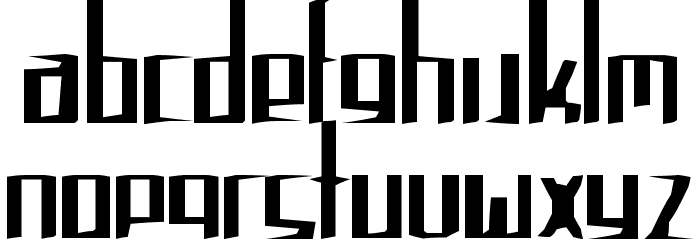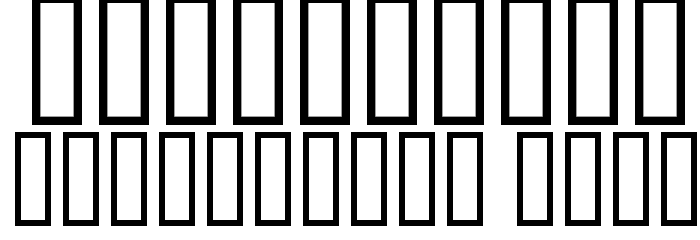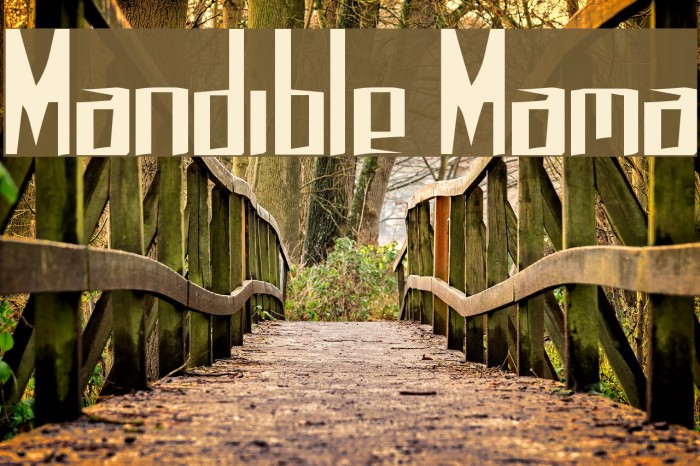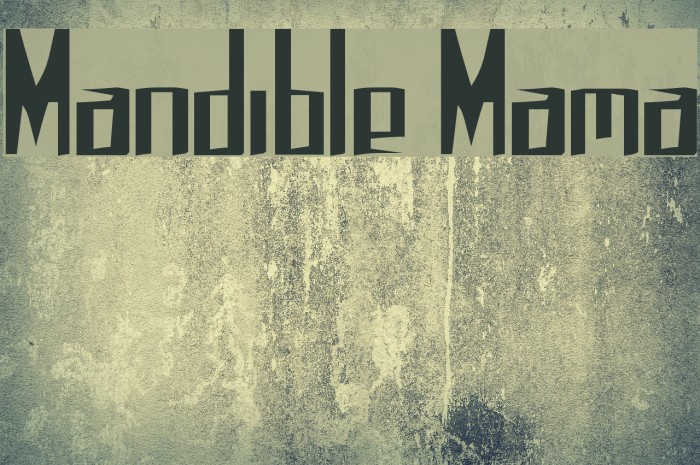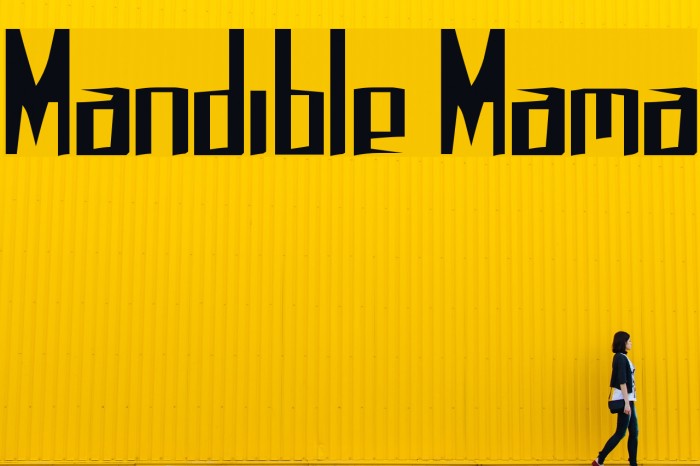
Mandible Mama Font
This font features a bold and striking design with sharp, angular edges and a geometric structure. The uppercase letters are tall and narrow, with exaggerated vertical lines and pointed serifs that give a sense of height and drama. The lowercase letters maintain the angular theme, with a slightly more condensed appearance, providing a cohesive look across different cases. The numerals are uniquely designed with a rectangular form, adding a modern and unconventional twist. Special characters follow the same angular and bold style, ensuring consistency throughout. This font's distinctive style makes it ideal for projects that require a strong visual impact.
A bold, angular font with geometric shapes and sharp edges.
- Proposed Projects: Ideal for posters, logos, branding, and any design requiring a bold statement.